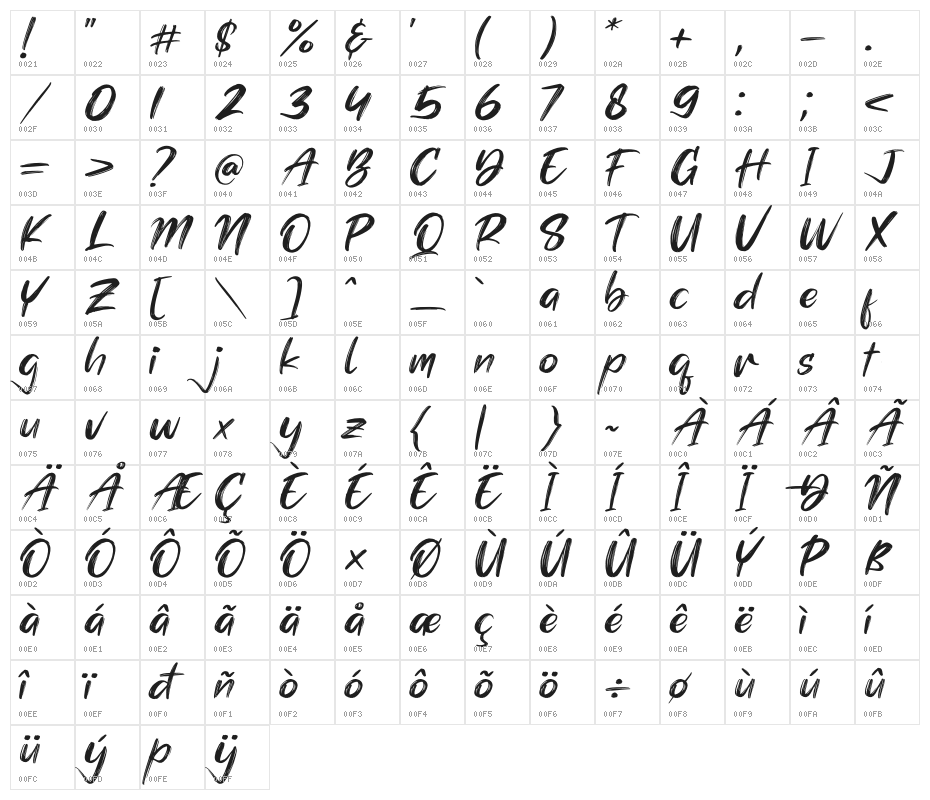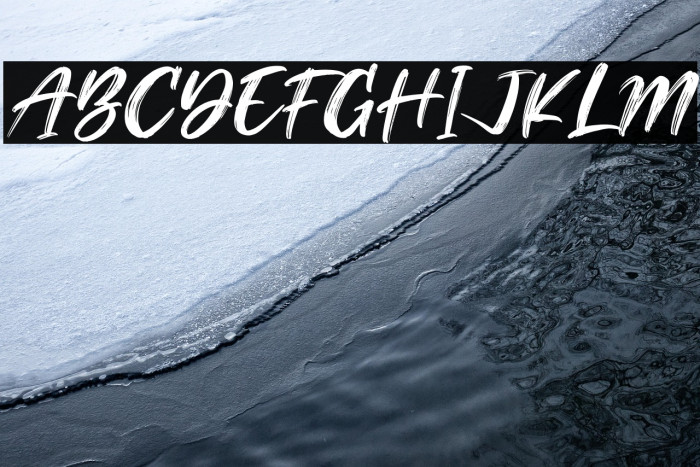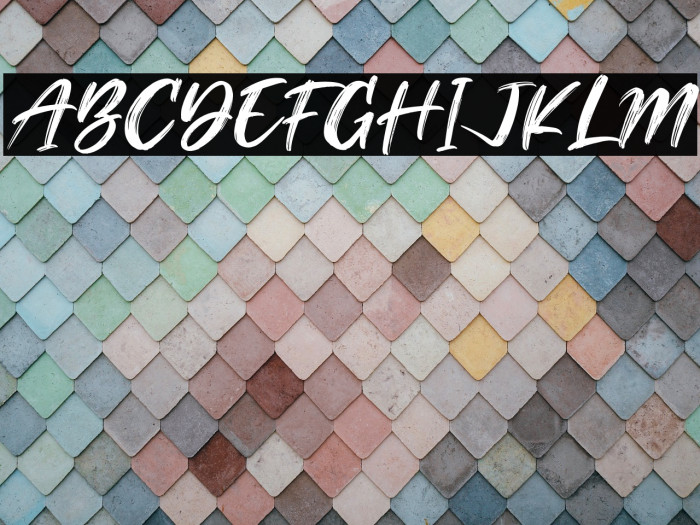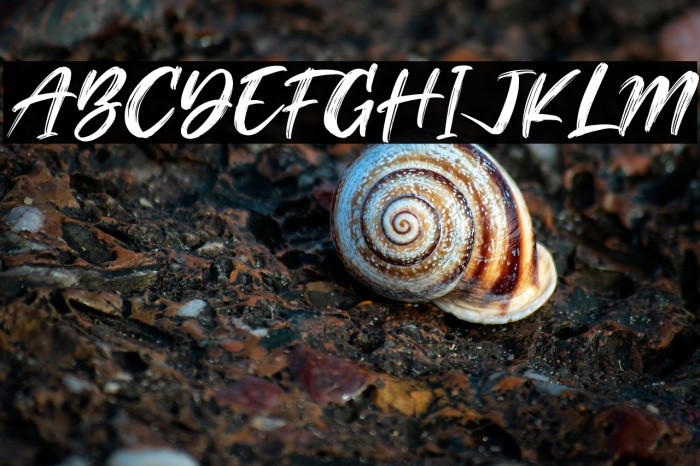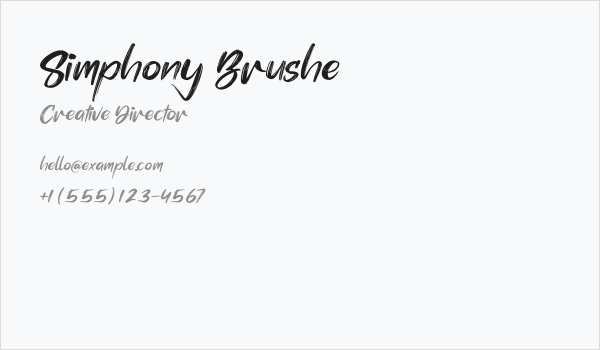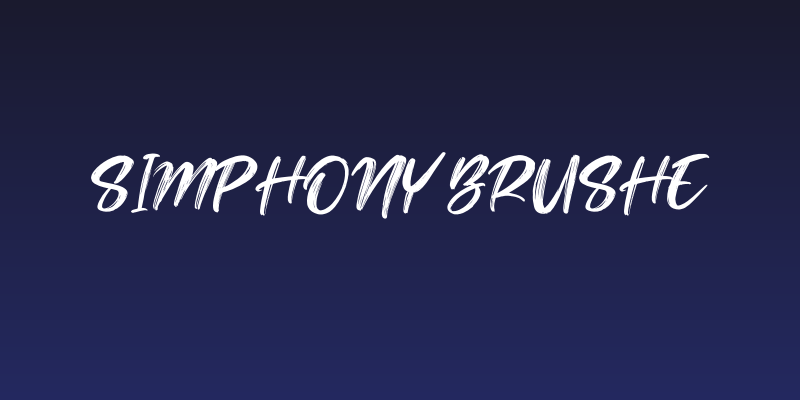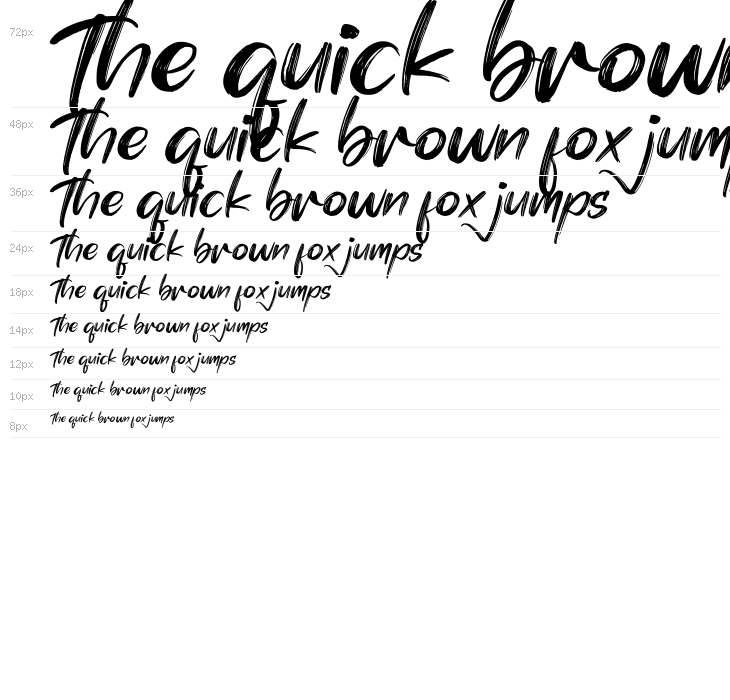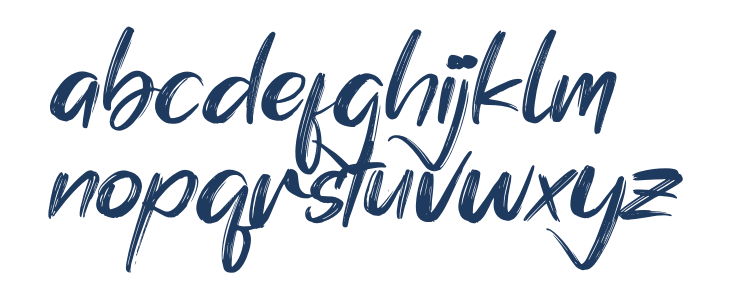
Simphony Brushe Font
Simphony Brushe Description
This font features a dynamic and energetic brush script style, characterized by its bold and expressive strokes. The letters have a hand-painted appearance, with varying thickness that adds a sense of movement and fluidity. The uppercase and lowercase letters are well-balanced, with a slight slant that enhances the casual and artistic feel. The numerals and special characters maintain the same lively aesthetic, making the font versatile for creative projects. The overall design is modern yet retains a classic brush script charm, suitable for a variety of applications.
| Use Case | Logos, Headlines, Posters |
| Proposed Projects | Ideal for branding, packaging, posters, invitations, and any project that requires a personal and artistic touch. |